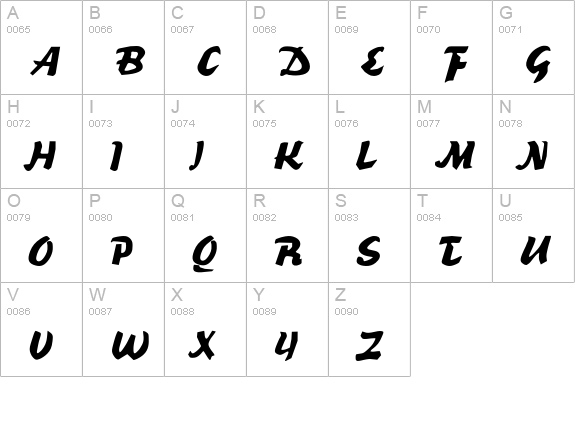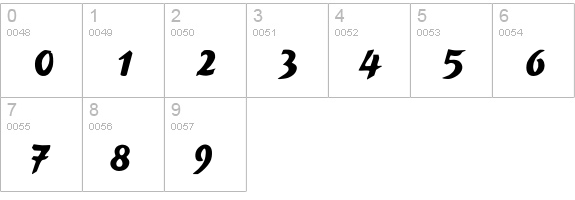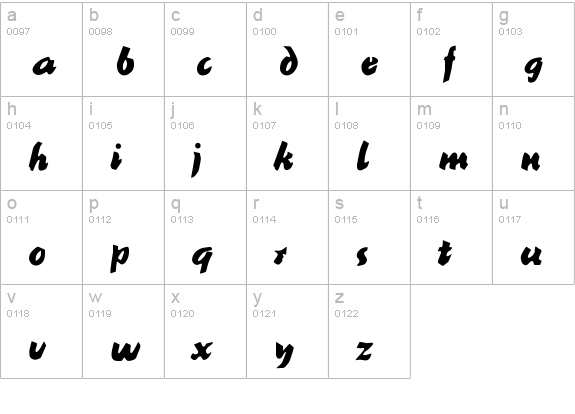
ReinerBlack Font Details
ReinerBlack font is a stunning display typeface that exudes elegance and sophistication. With its bold and powerful letterforms, this font is perfect for creating attention-grabbing headlines, logos, and branding materials. The unique design of ReinerBlack font combines sharp angles with smooth curves, resulting in a visually striking and modern look. What makes ReinerBlack font even more appealing is that it is available for free download at FontsMarket.com. This means that designers, creatives, and typographers can easily access this fantastic font without any cost. Whether you are a professional designer or a passionate hobbyist, ReinerBlack font is a valuable addition to your font collection. The versatility of ReinerBlack font allows it to be used in various design projects. It can effortlessly elevate a minimalist poster, add a touch of sophistication to a fashion magazine layout, or bring a modern twist to a restaurant menu. The bold and commanding presence of ReinerBlack font ensures that your message will be conveyed with impact and style. With its extensive character set, ReinerBlack font supports multiple languages and special characters, making it suitable for global design projects. Its clean and legible letterforms ensure clear communication, while its unique personality adds a touch of artistic flair. ReinerBlack font is a must-have for anyone looking to make a bold statement with their designs. And the best part is, it's completely free to download at FontsMarket.com. Don't miss out on this opportunity to enhance your creative projects with ReinerBlack font's powerful and stylish aesthetic.